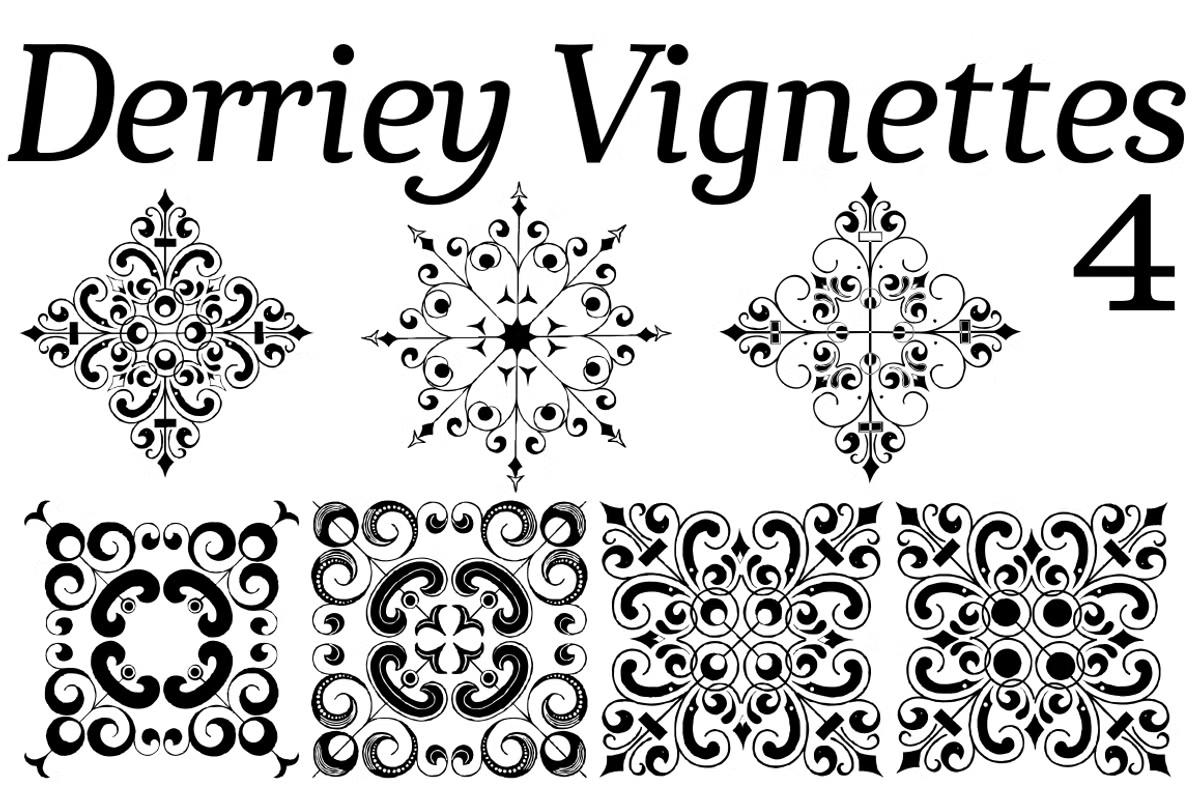
Derriey Vignettes Four
Font Family by Intellecta Design
This is the Intellecta’s digitization of the fantastic heritage by Charles Derriey. Besides the original ornaments and fleurons, our collection has new interpretations and new designs based in the original work. A tour-de-force by Iza W.